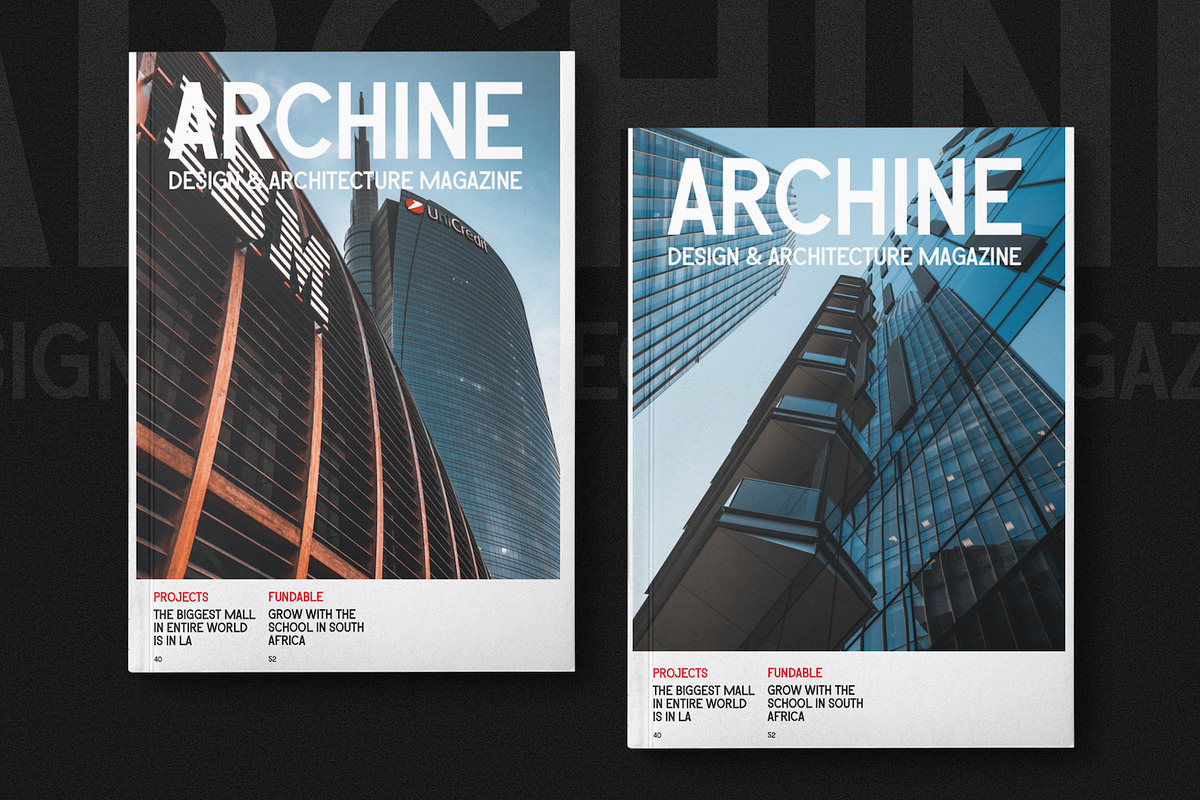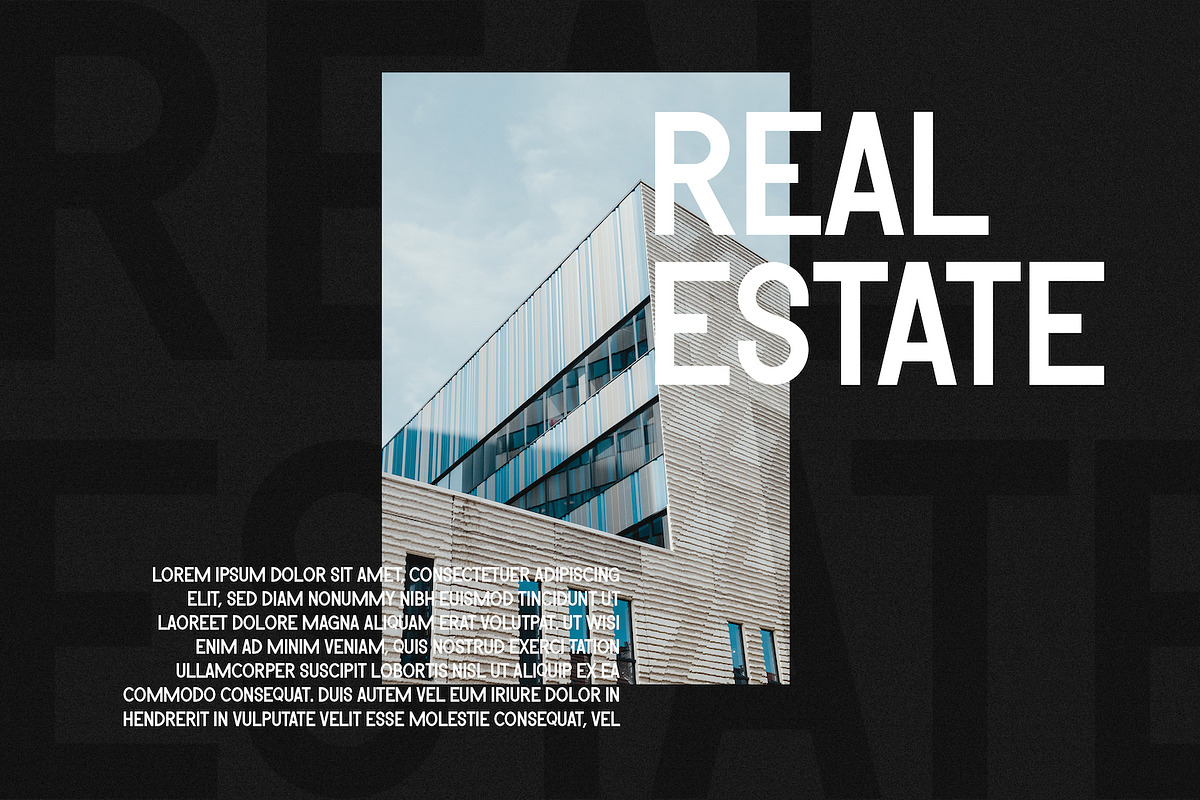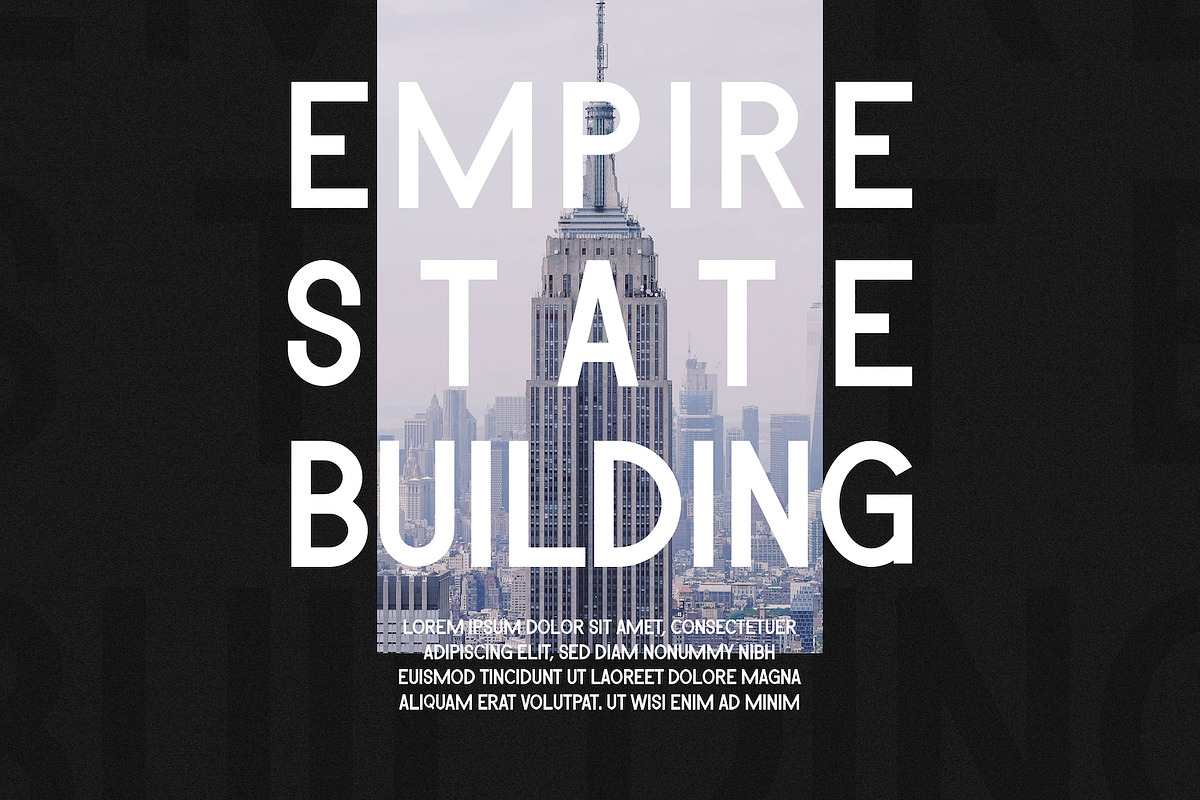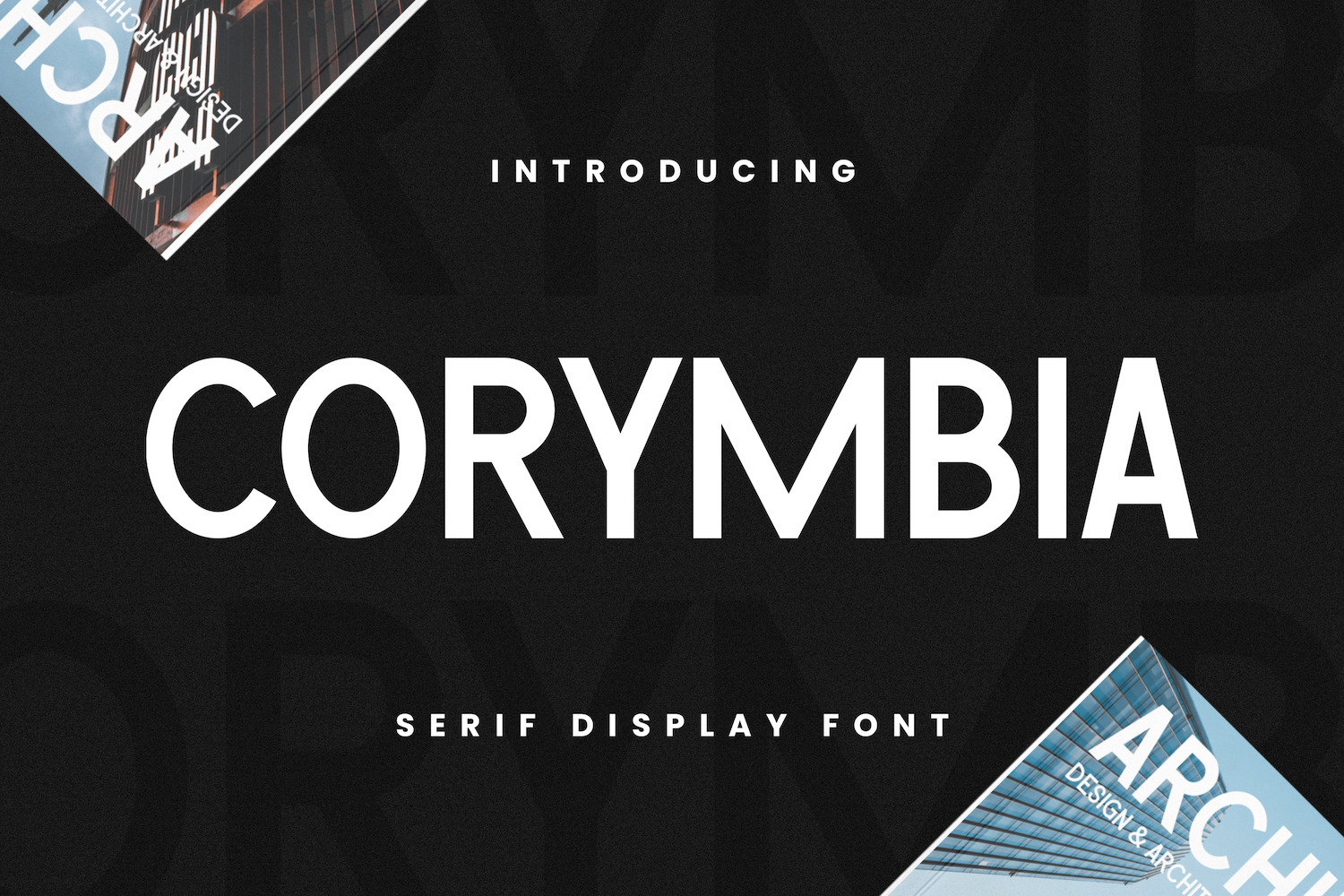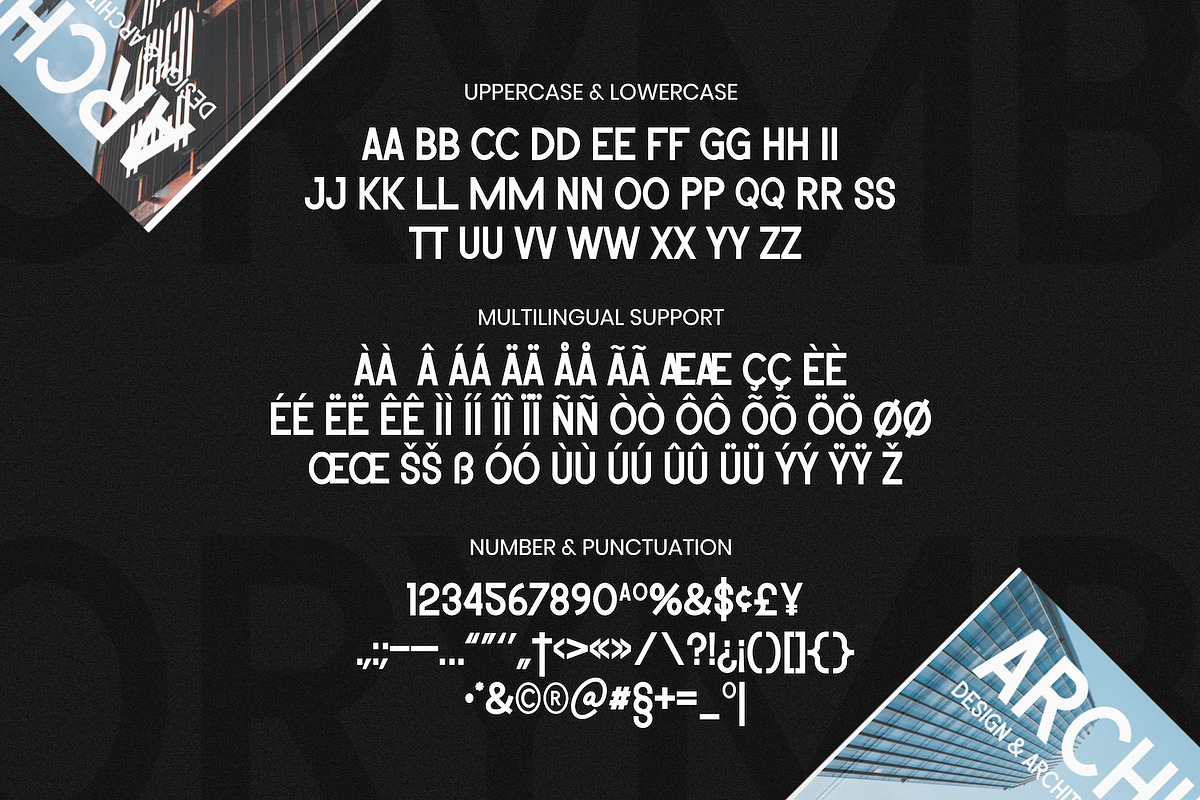
Corymbia - Serif Font
Corymbia is serif display fonts with visual elegance, smooth curves and beautiful ligatures clear, making your work look true and attractive.
A very versatile font that works in both large and small sizes. This font is suitable for a wide variety of projects such as invitations, logo, branding, magazine, photography, card, product packaging, mugs, quotes, poster, label, signature and more.
- Punctuation, Number and Symbol
- Multilingual Support ÀÁÂÃÄÅÆÇÈÉÊËÌÍÎÏÐÑÒÓÔÕÖØÙÚÛÜÝ